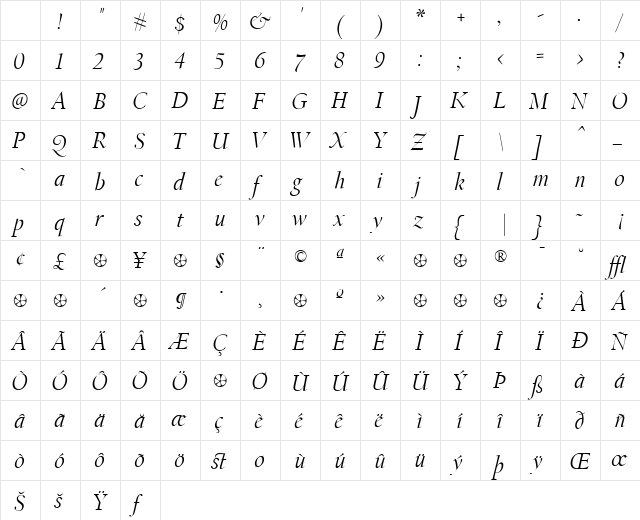
Complete CalifornianDisplay Italic glyph index. Displaying only characters natively supported by CalifornianDisplay Italic font.
CalifornianDisplay is built around its visual character rather than neutral utility - its distinctive forms are designed to make an impression at display sizes. The slanted form adds forward momentum and visual energy.
Font Pairing: Pair with a clean neutral sans-serif for body copy to let CalifornianDisplay's character lead without overwhelming the composition.
Pro Tip: Use CalifornianDisplay exclusively at display sizes - it was designed to be seen, not read at length. Let a neutral companion handle body copy.